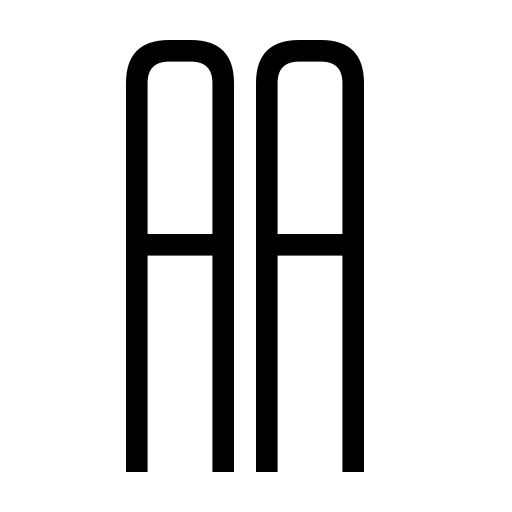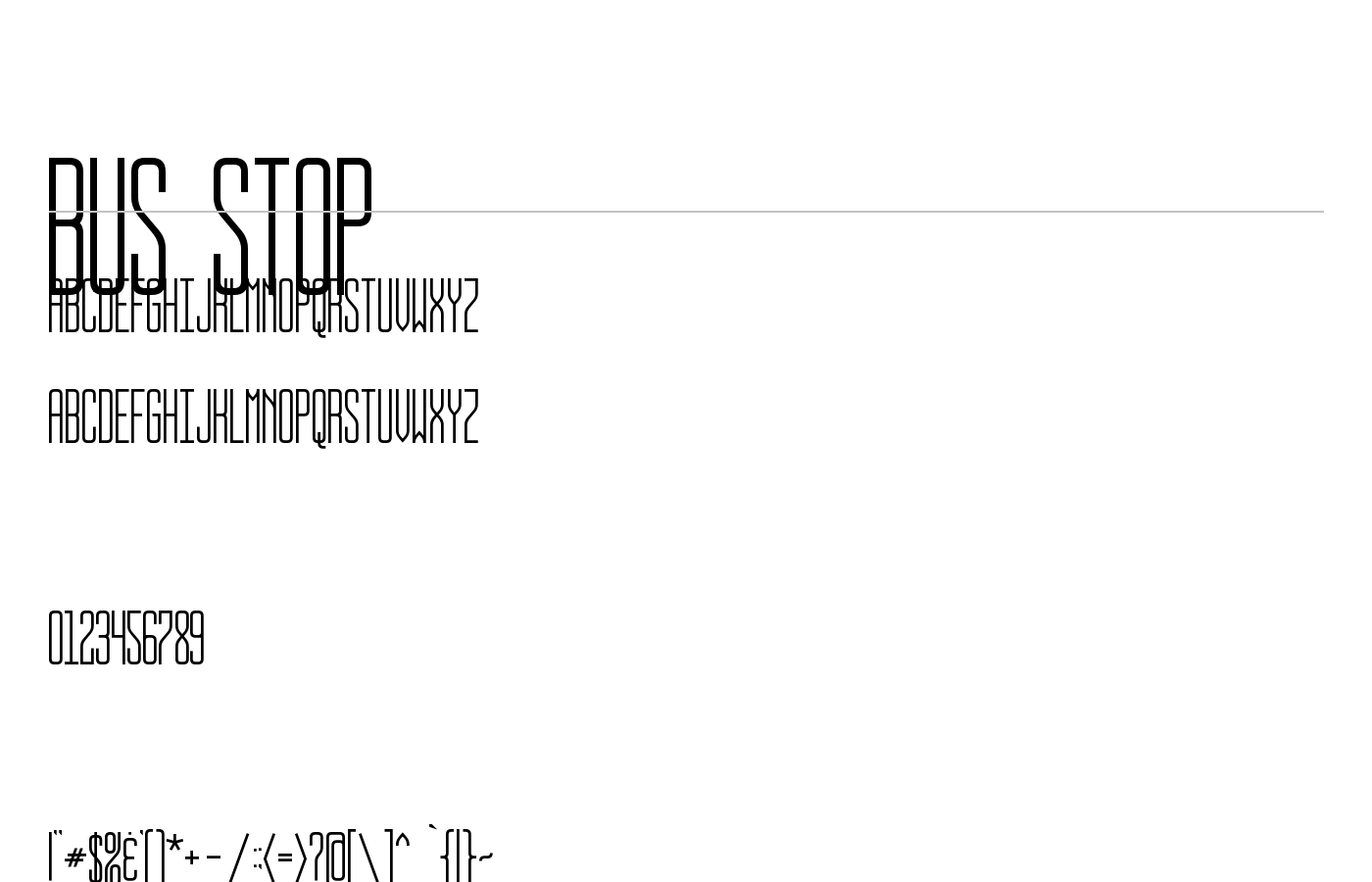
BUS STOP is a condensed, ultra-light sans serif font with a minimalist and geometric aesthetic. Its tall, narrow letterforms and uniform stroke weight give it a modern, streamlined look that works well for futuristic or tech-inspired designs. This font is ideal for impactful headlines, logos, and branding where a sleek, sophisticated style is desired.
BUS STOP Font